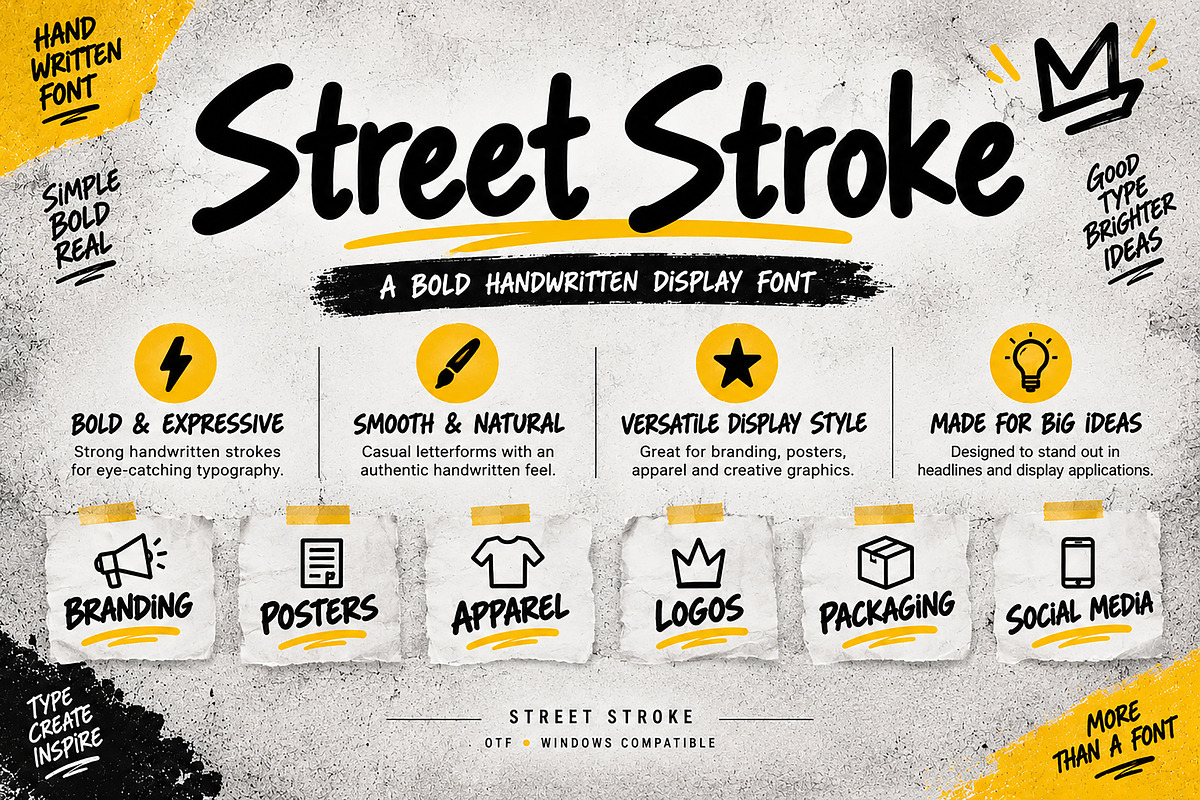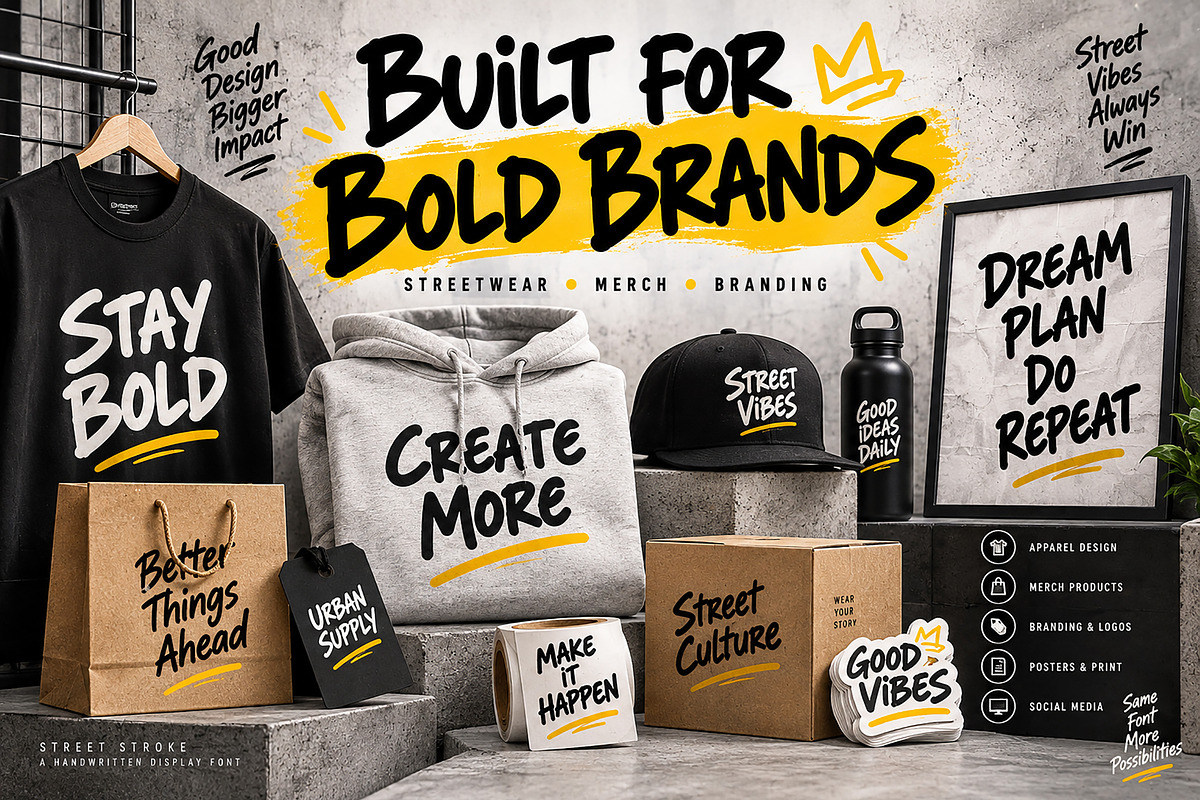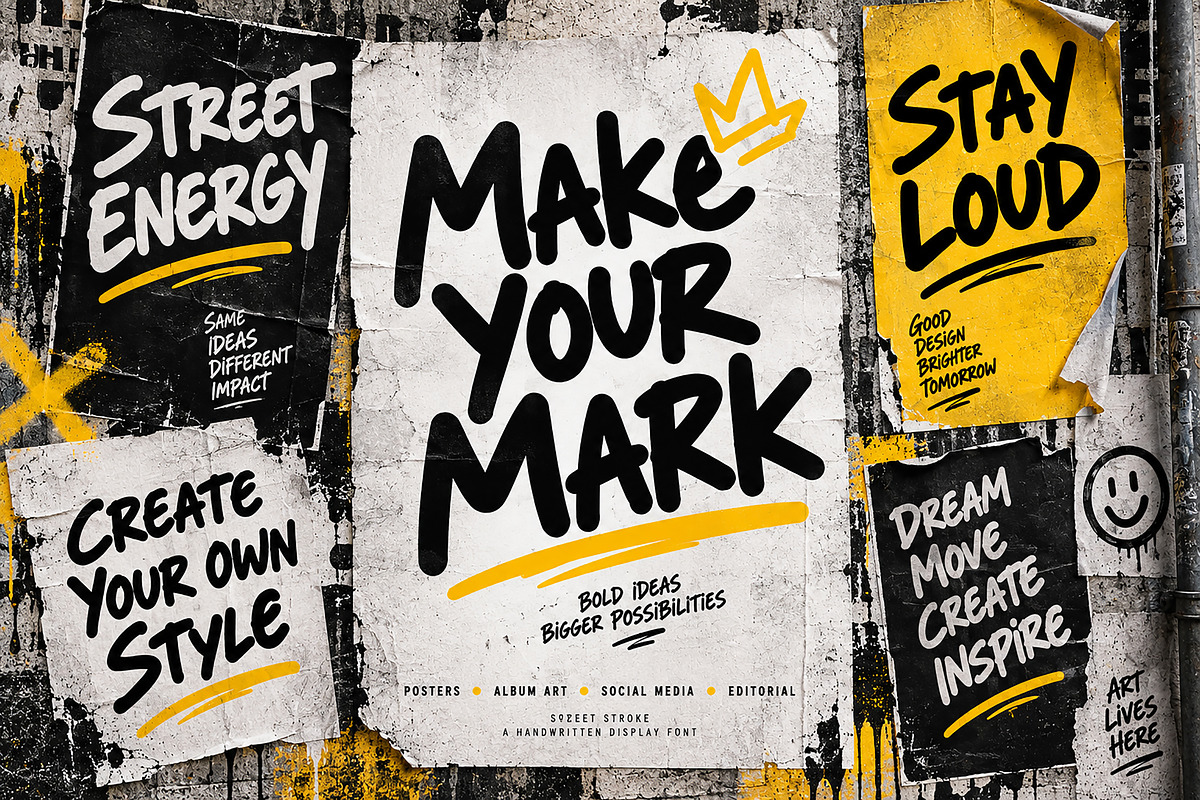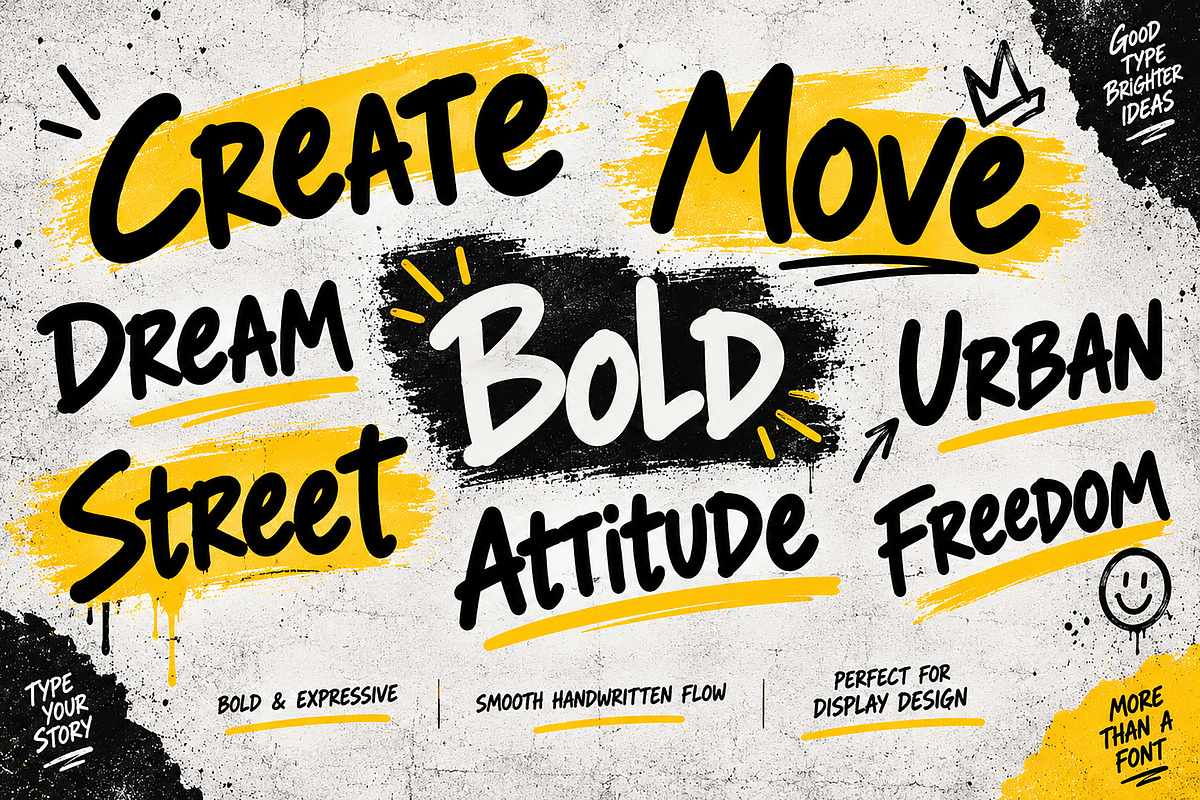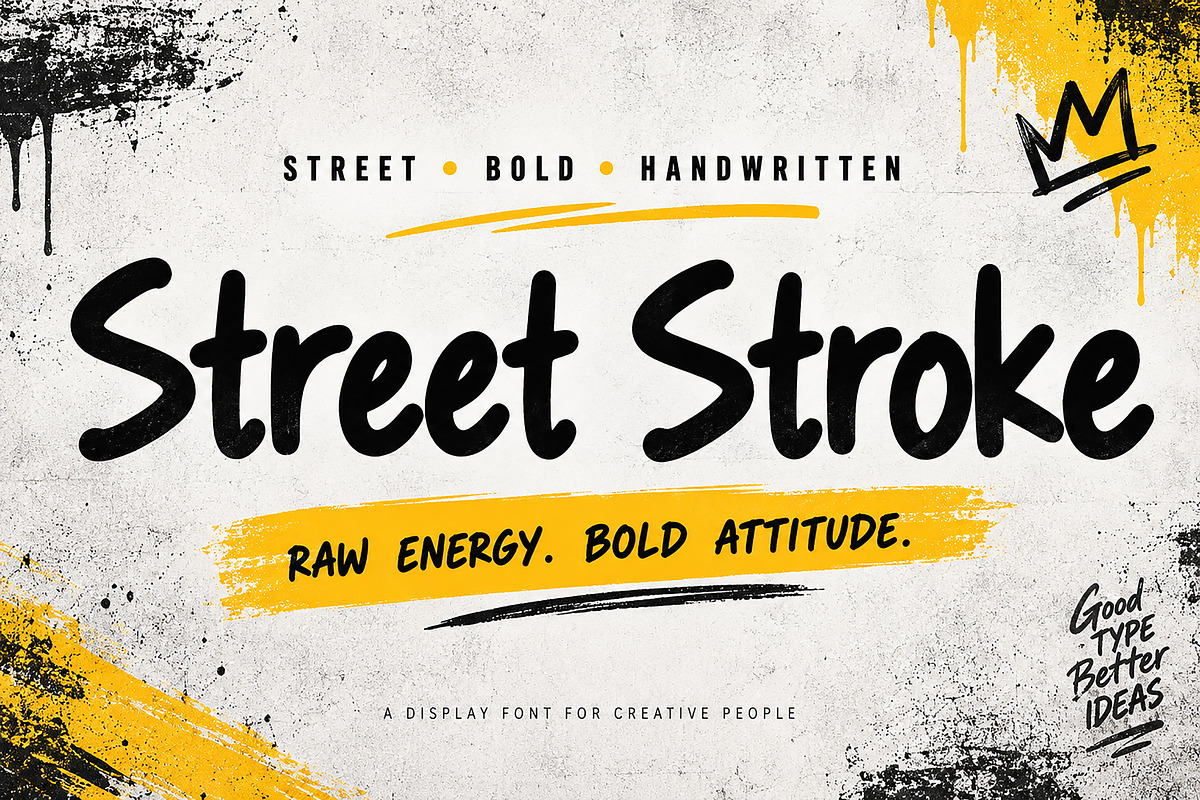
Street Stroke
Street Stroke is a bold and expressive handwritten display font designed to bring raw energy, casual attitude, and an authentic street-inspired feel to your creative projects. With thick, smooth strokes and a strong hand-drawn personality, this typeface is made to stand out in bold headlines and eye-catching designs.
Perfect for streetwear branding, apparel graphics, posters, logos, packaging, stickers, merchandise, social media graphics, album artwork, quotes, and creative advertising.
Street Stroke works especially well when you want your typography to feel energetic, playful, bold, and instantly noticeable.
Bold handwritten display style
Thick, expressive letterforms
Casual and energetic visual personality
Great for headlines and display typography
Suitable for branding and merchandise designs
Perfect for posters, apparel, stickers, packaging, and social media
Give your designs a bold handwritten voice with Street Stroke.